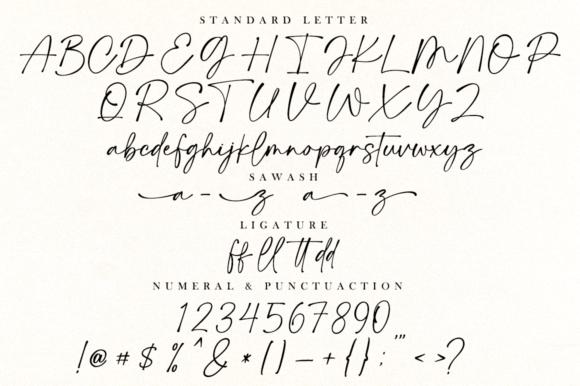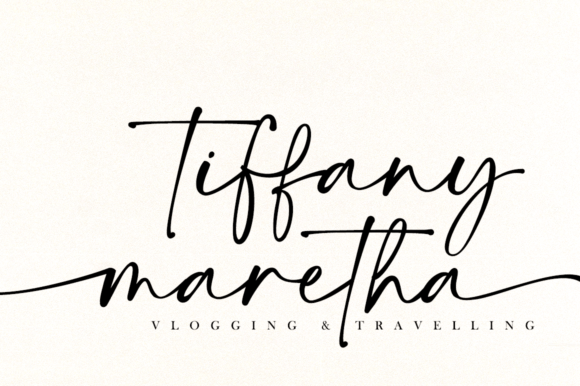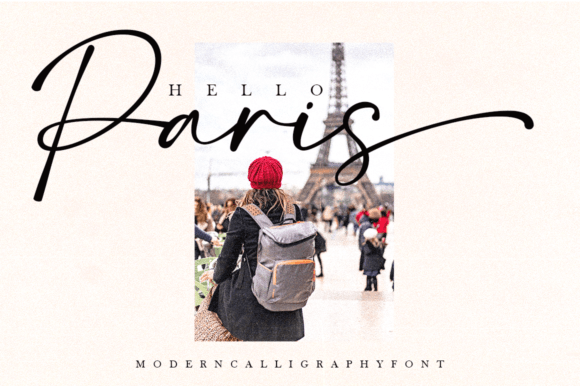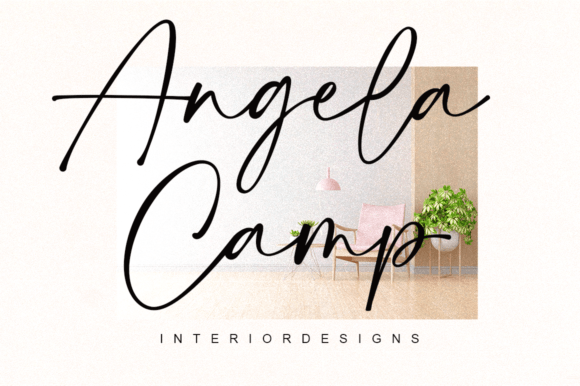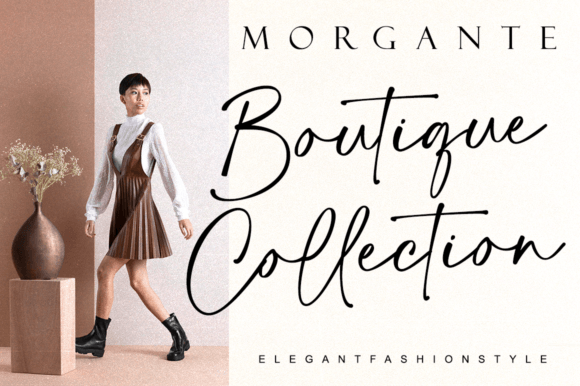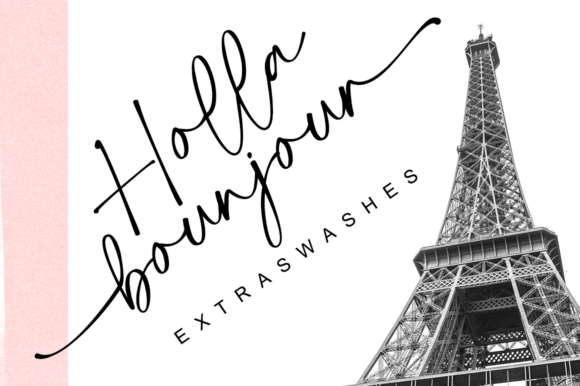
Introducing Galatine Font: Elevate Your Designs with Timeless Elegance
Are you on the hunt for a font that exudes sophistication, elegance, and a touch of whimsy? Look no further than the Galatine Font. This beautiful handwritten font is perfect for designers and crafters seeking to add a unique flair to their projects. From logos and wedding stationery to photography watermarks and modern websites, Galatine is the ideal choice for creating spectacular designs that stand out from the crowd.
The Distinctive Style of Galatine
Galatine boasts an incredibly distinct and timeless style that is sure to capture the hearts of designers and crafters alike. Its elegant, handwritten aesthetic is perfect for those seeking to add a touch of sophistication and refinement to their designs. Whether you’re working on a wedding invitation, a logo, or a website, Galatine’s unique charm is sure to shine through.
One of the standout features of Galatine is its PUA (Private Use Area) encoding. This means that accessing all of the glyphs and swashes is a breeze, allowing you to focus on the creative process rather than getting bogged down in technical details. With Galatine, you can easily access a wide range of characters, including ligatures, alternates, and swashes, giving you the flexibility to create truly unique and eye-catching designs.
Galatine’s versatility is one of its greatest strengths. This beautiful font can be used for a wide range of design projects, including:
- Logos: Create a lasting impression with a custom logo that showcases your brand’s personality and style.
- Wedding Stationery: Make your wedding invitations, programs, and other stationery truly unforgettable with Galatine’s elegant, handwritten charm.
- Photography Watermarks: Add a touch of sophistication to your photos with a custom watermark that reflects your personal style.
- Modern Websites: Elevate your website’s design with Galatine’s clean, elegant aesthetic, perfect for headers, titles, and more.
Why Choose Galatine?
So why choose Galatine over other fonts? Here are just a few reasons why designers and crafters are falling in love with this beautiful handwritten font:
- Unique Style: Galatine’s distinctive style sets it apart from other fonts, ensuring your designs stand out from the crowd.
- Ease of Use: With PUA encoding, accessing glyphs and swashes is easy, making the design process a breeze.
- Versatility: Galatine can be used for a wide range of design projects, from logos and wedding stationery to photography watermarks and modern websites.
- Timeless Elegance: Galatine’s elegant, handwritten aesthetic ensures your designs will remain timeless and sophisticated for years to come.
Get Ready to Fall in Love with Galatine
In conclusion, Galatine Font is a beautiful, elegant, and versatile font that’s perfect for designers and crafters seeking to add a touch of sophistication and whimsy to their projects. With its PUA encoding, unique style, and endless design possibilities, Galatine is the ideal choice for creating stunning designs that stand out from the crowd. So why not give Galatine a try today and see the difference it can make in your designs?